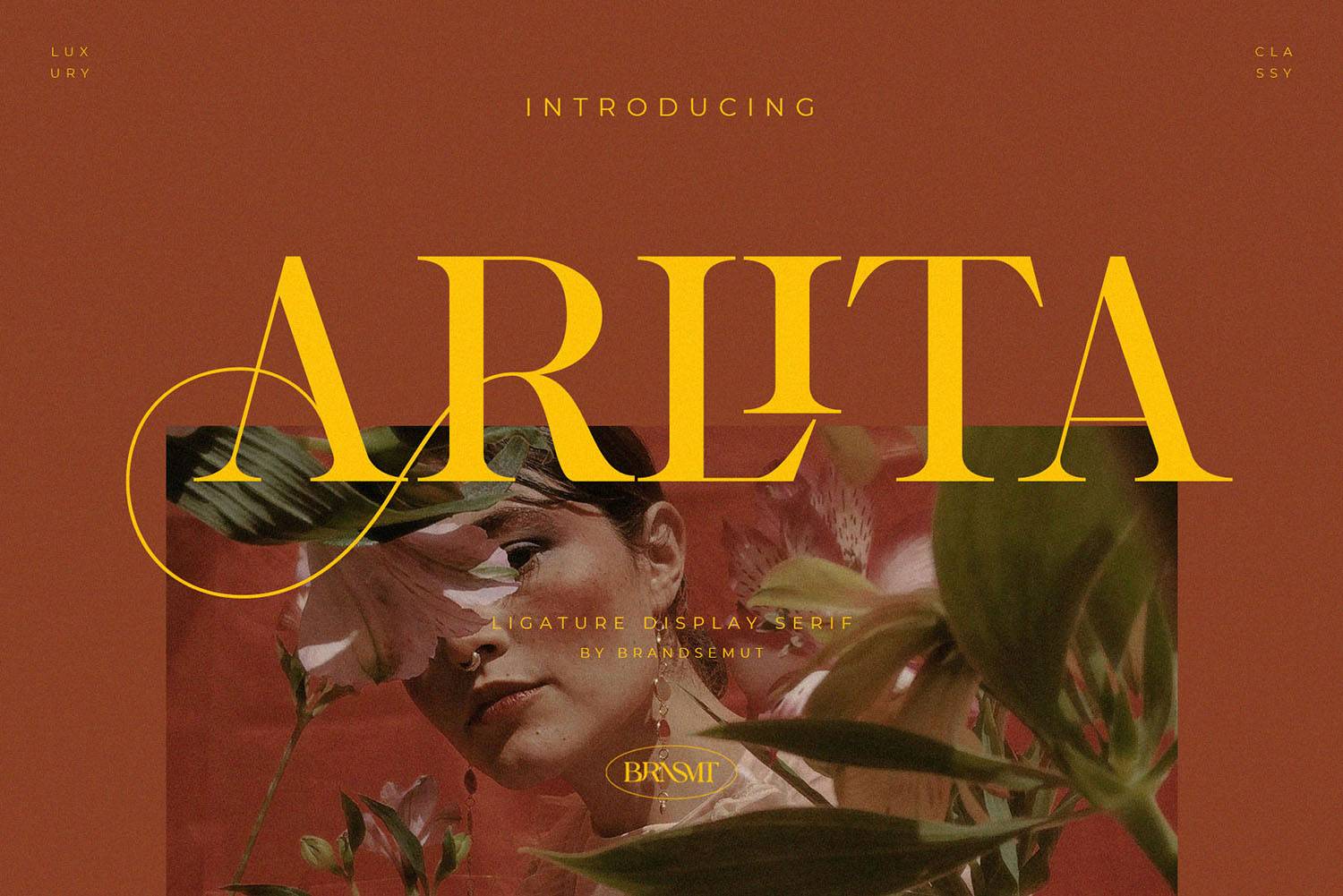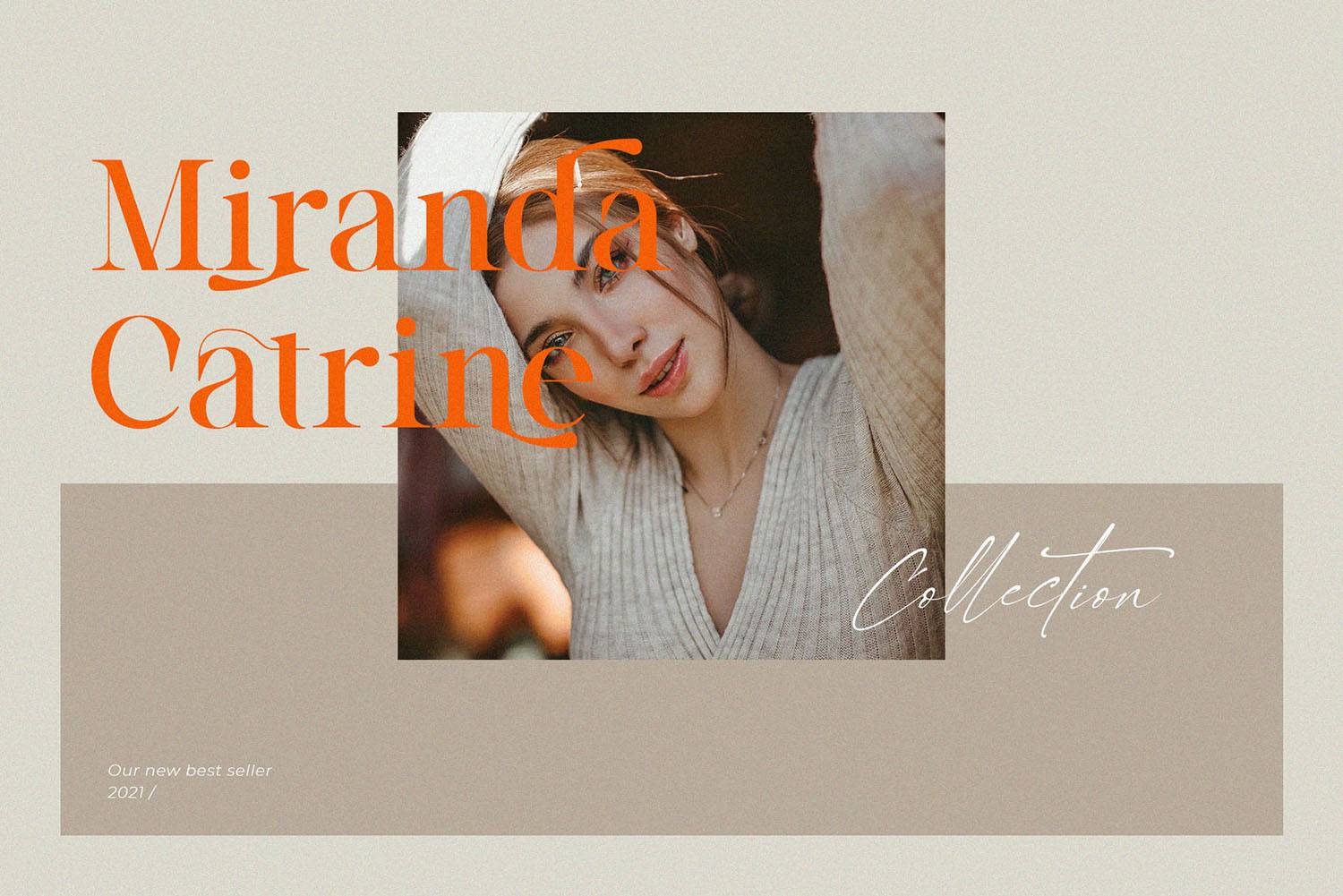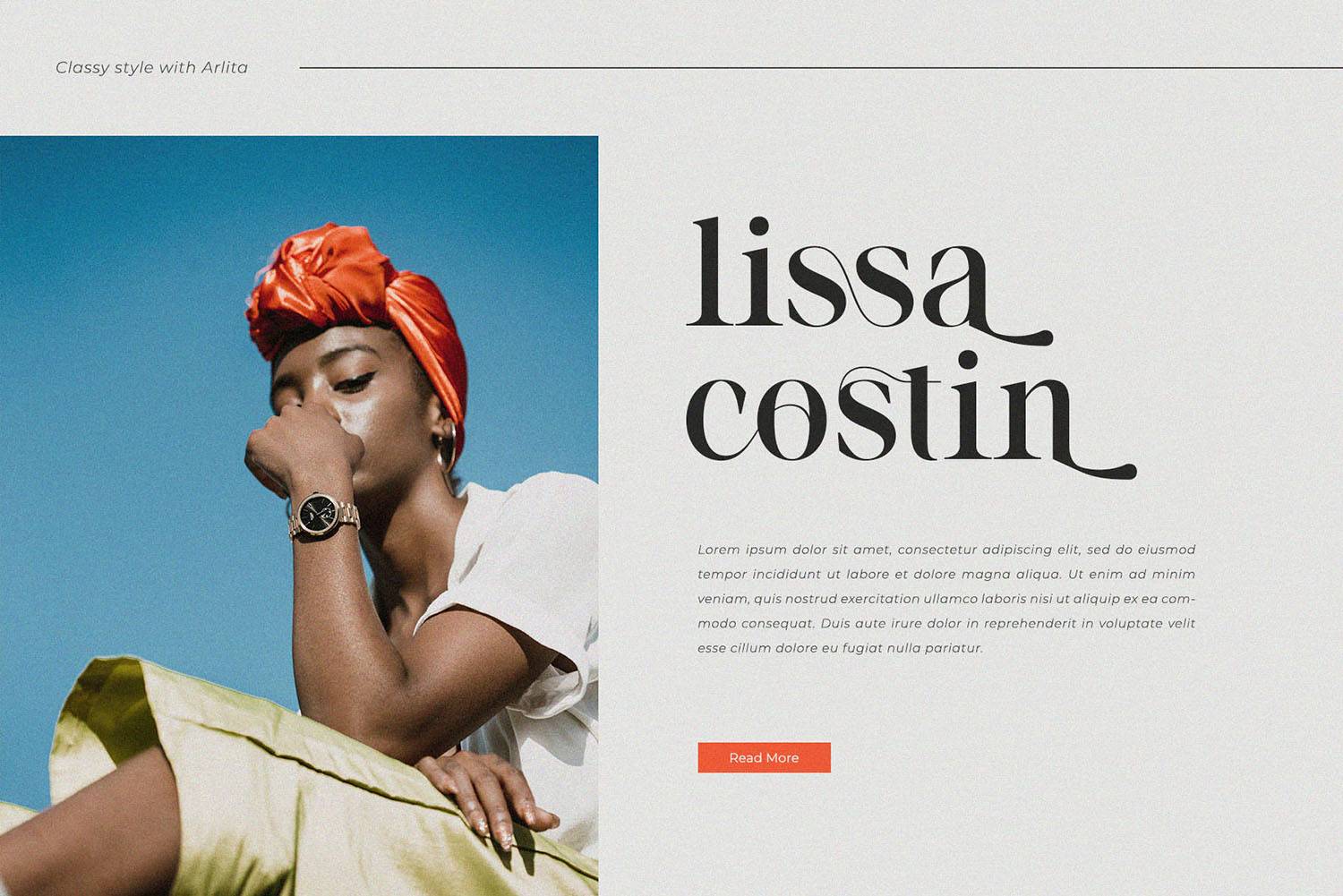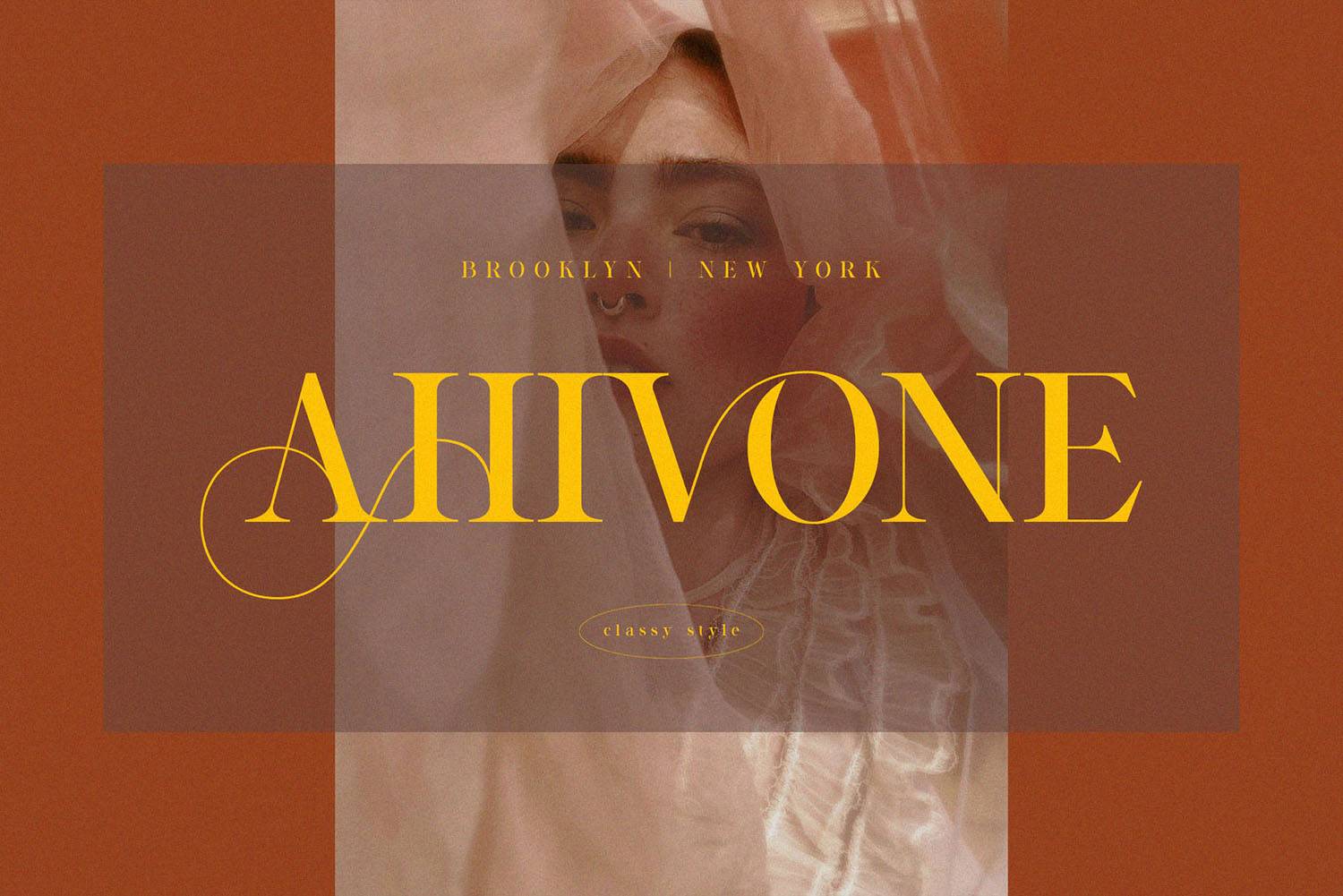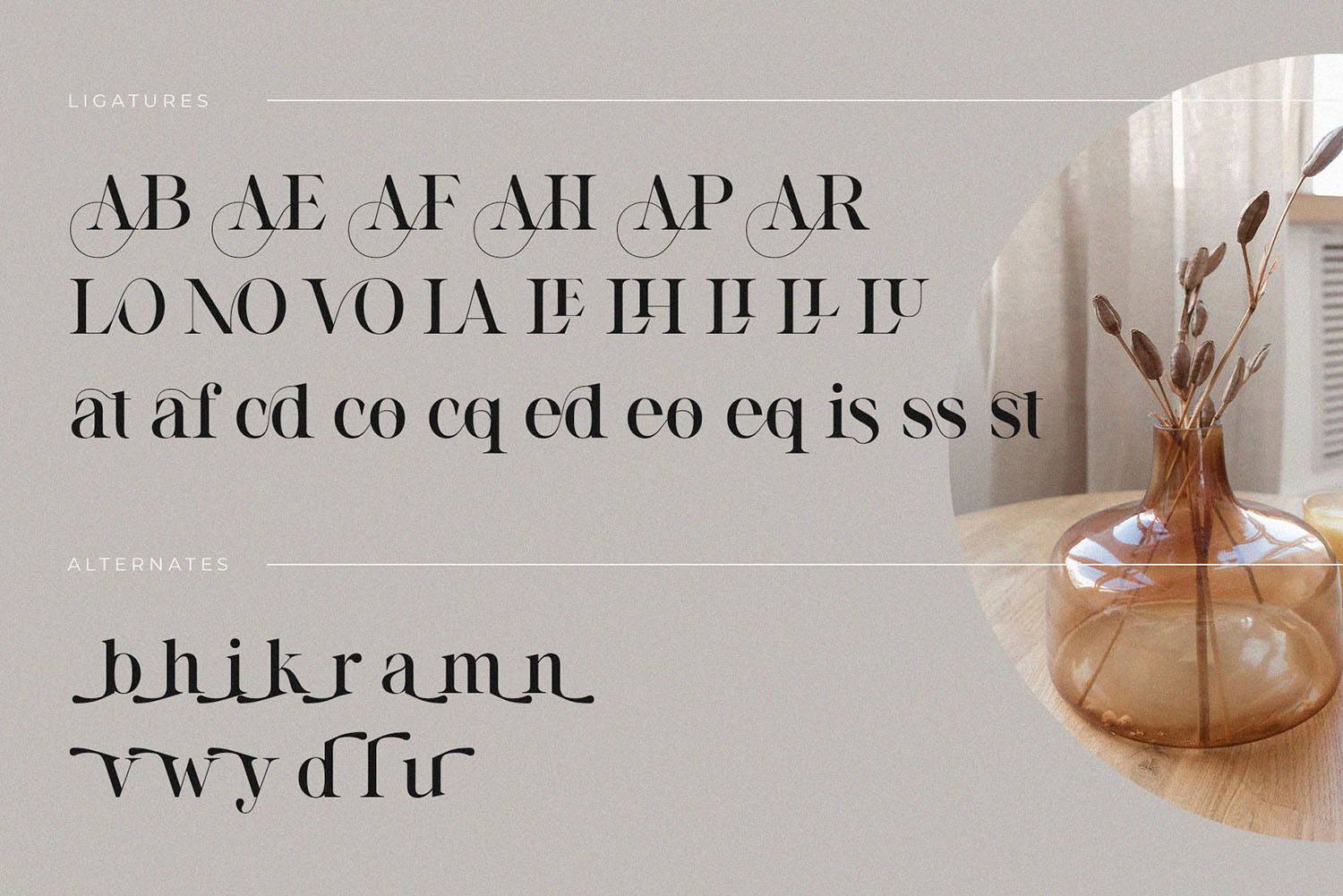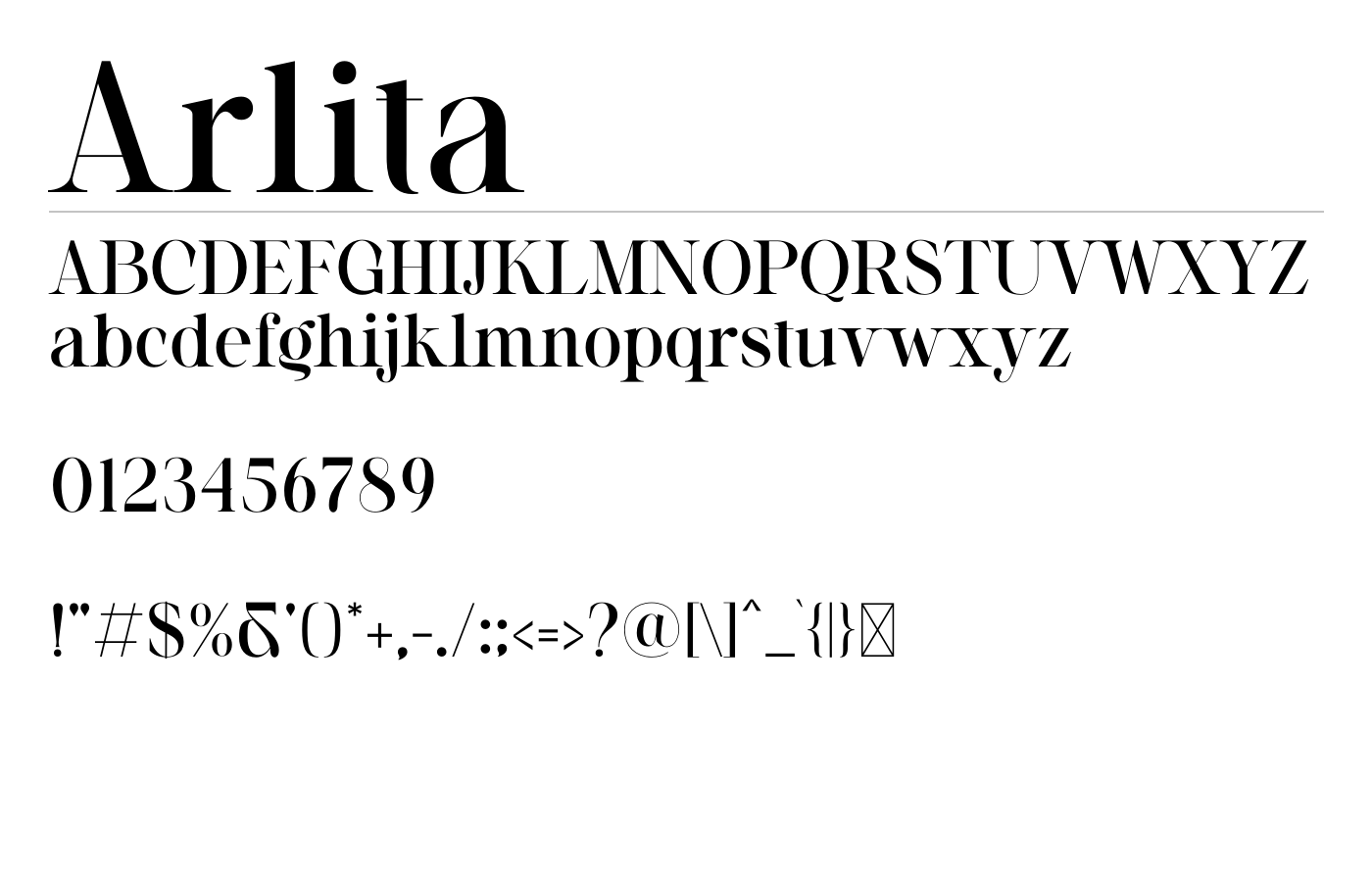
Arlita is an elegant serif font characterized by its high contrast between thick and thin strokes and refined bracketed serifs, giving it a sophisticated, modern feel with a touch of classic charm. Its tall, graceful letterforms with distinctive double-story ‘a’ and ‘g’, along with its crisp, sharp details, make it ideal for luxury branding, editorial headlines, and stylish packaging where a timeless yet contemporary mood is desired. This font works best in display contexts where its delicate stroke contrast and elegance can shine, adding a sense of refinement and professionalism.
Arlita Font
About Arlita Font
| Font family | Arlita Font |
| Release date | 2021-09-23 |
| Designer | Brandsemut |